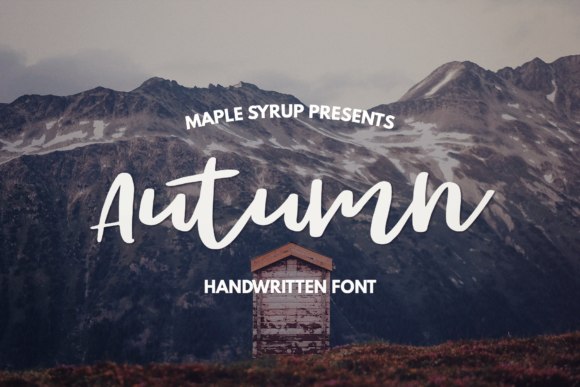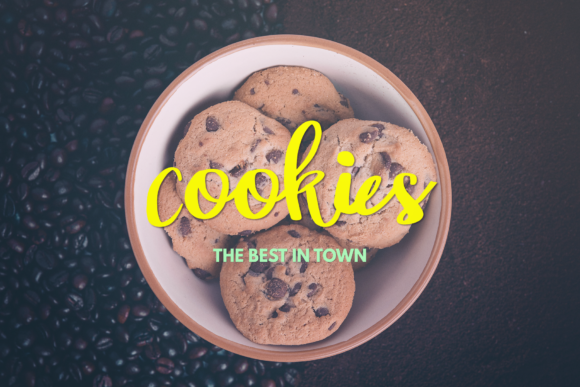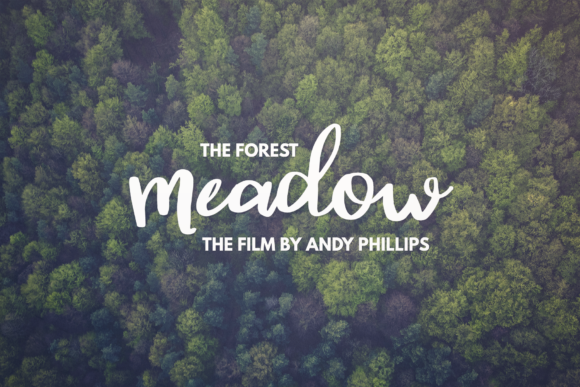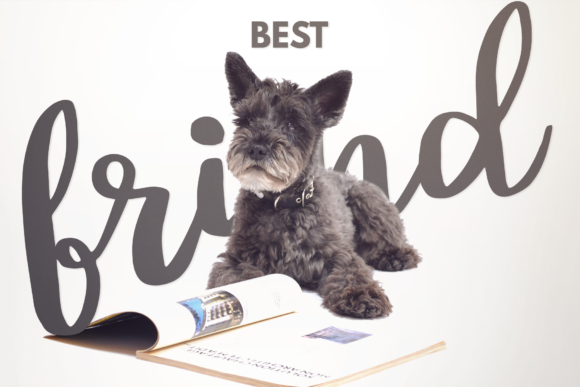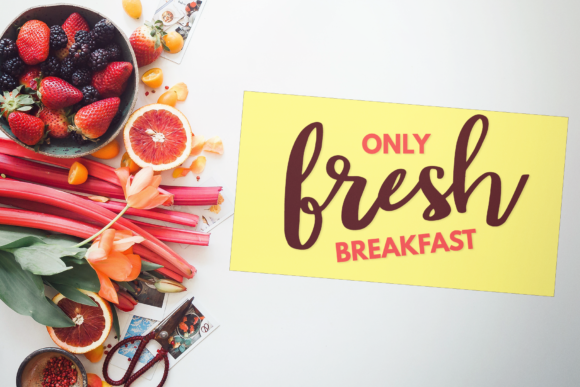
Autumn Script Font
About Autumn Script Font
Autumn is a handwritten font inspired by seasons of the year. It has a clean and modern feel and will give a striking look to your designs.